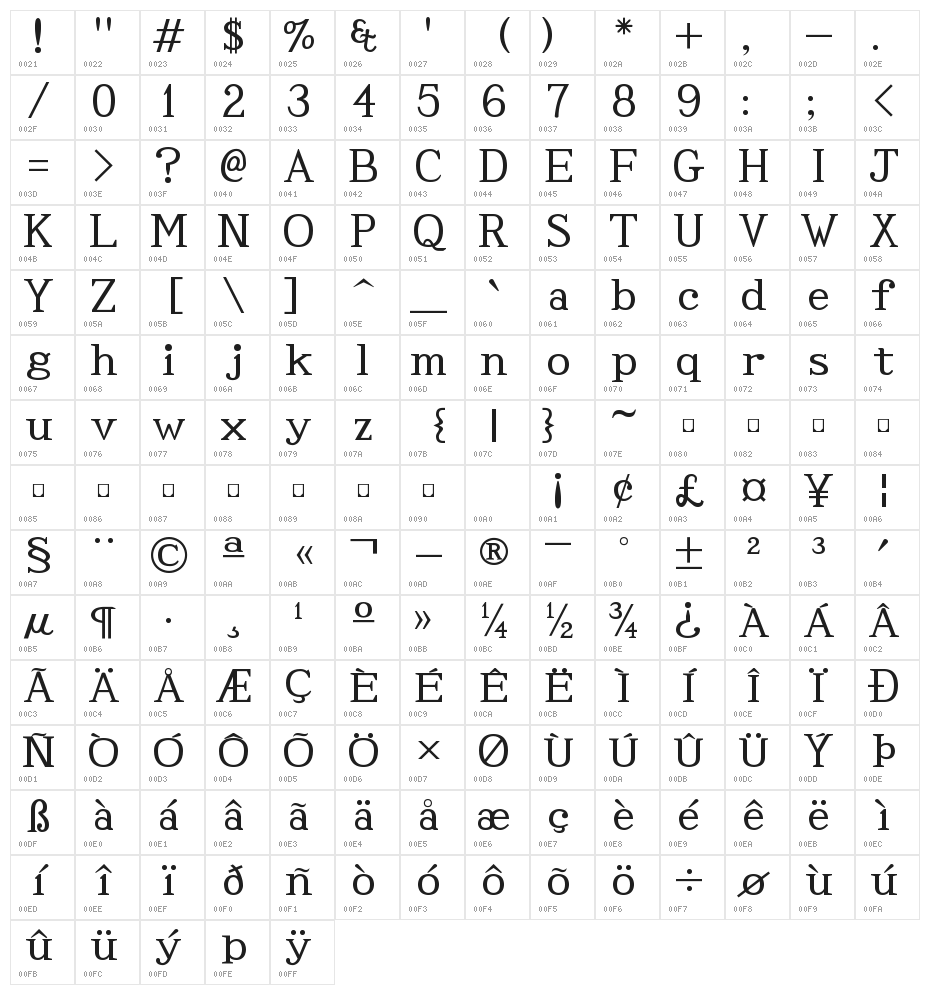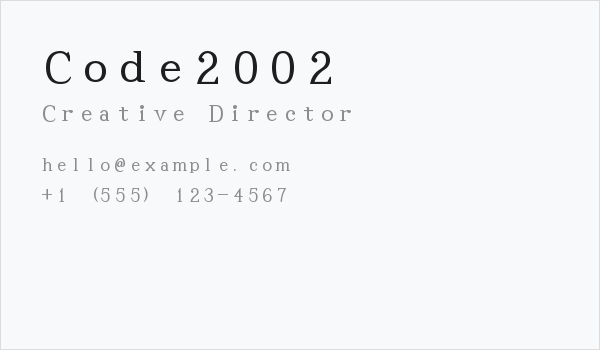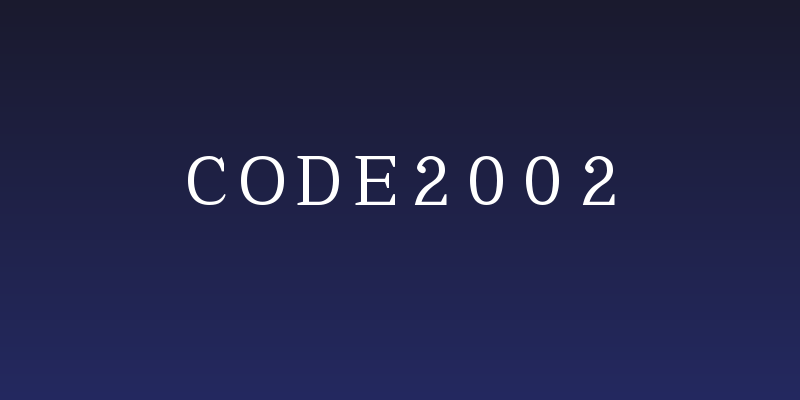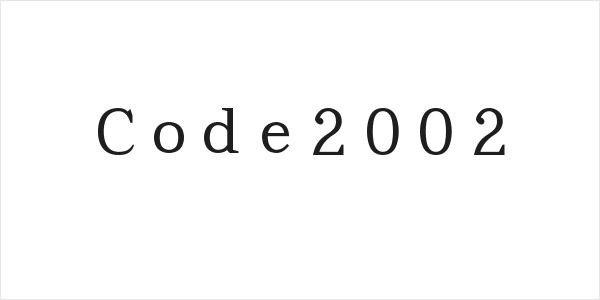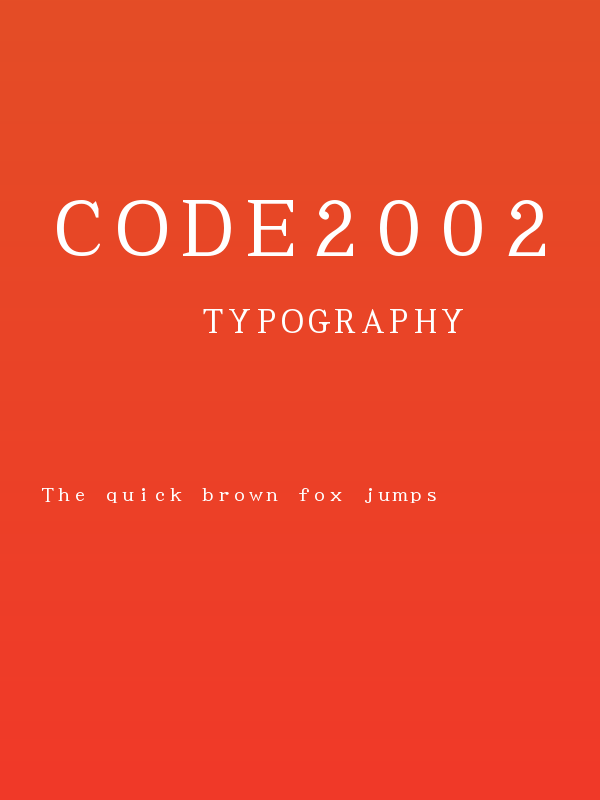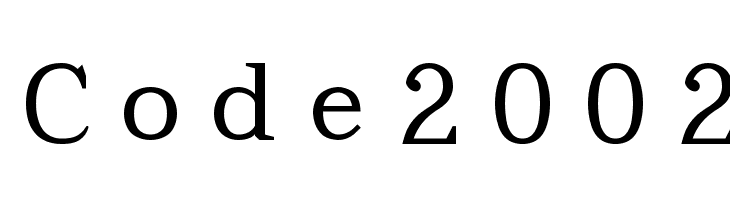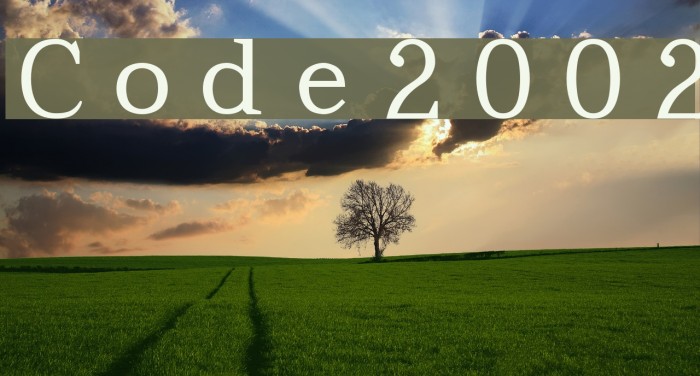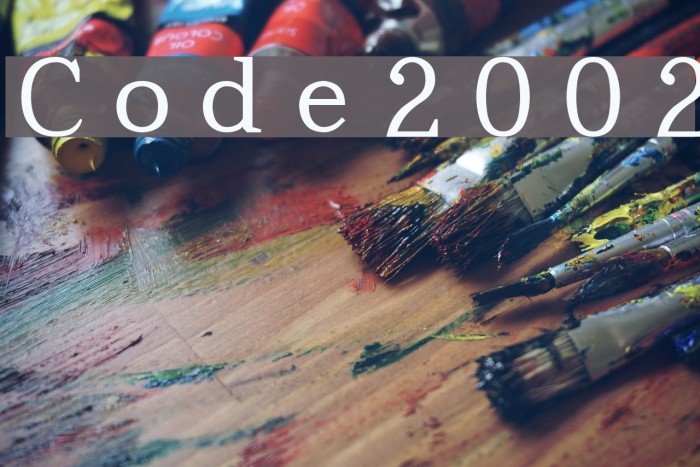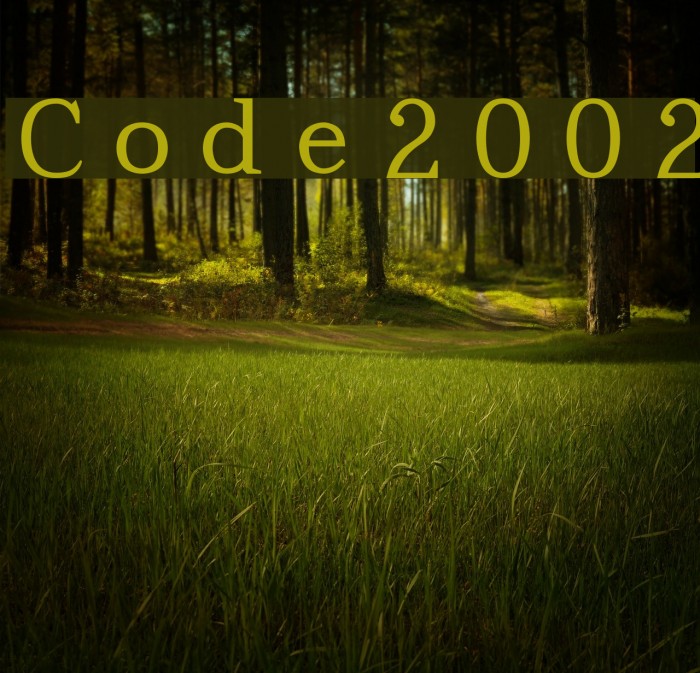
Code2002 Font
Code2002 Description
This font exhibits a classic serif style with a modern twist. The characters are well-defined with distinct serifs that provide a sense of elegance and tradition. The uppercase letters are bold and commanding, while the lowercase letters maintain a consistent flow with slightly rounded edges. The numerals are clear and balanced, making them easily readable. Special characters are designed with the same attention to detail, ensuring uniformity across the font. The overall appearance is sophisticated, making it suitable for a variety of formal and professional applications.